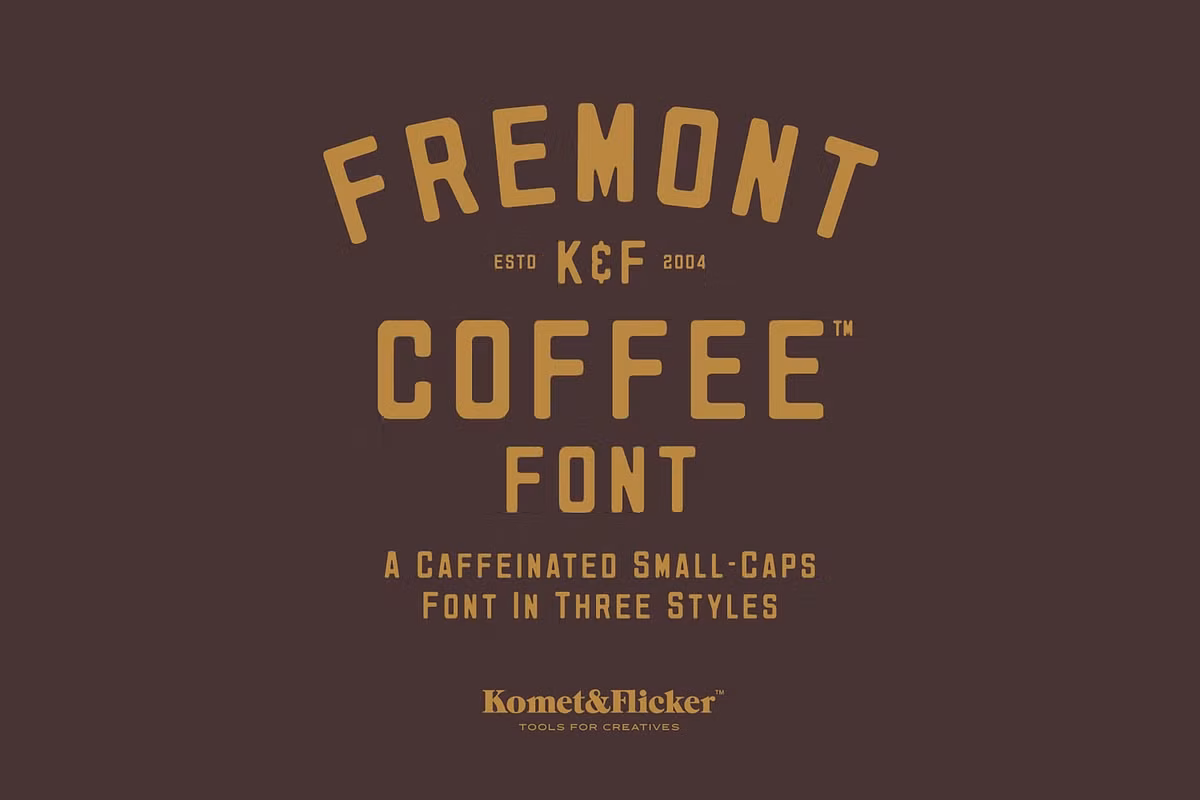
Fremont Coffee - A Caffeinated Font Free Download
Fremont Coffee - A Caffeinated Font Free Download is a warm and energetic typeface brewed to perfection for cozy, creative design projects. Please note: you must purchase this font for commercial use, but you can test it through a free download. Inspired by the inviting atmosphere of artisanal coffee shops, Fremont Coffee features hand-drawn charm, playful curves, and a handcrafted vibe that’s perfect for café branding, menu designs, product packaging, and lifestyle content.